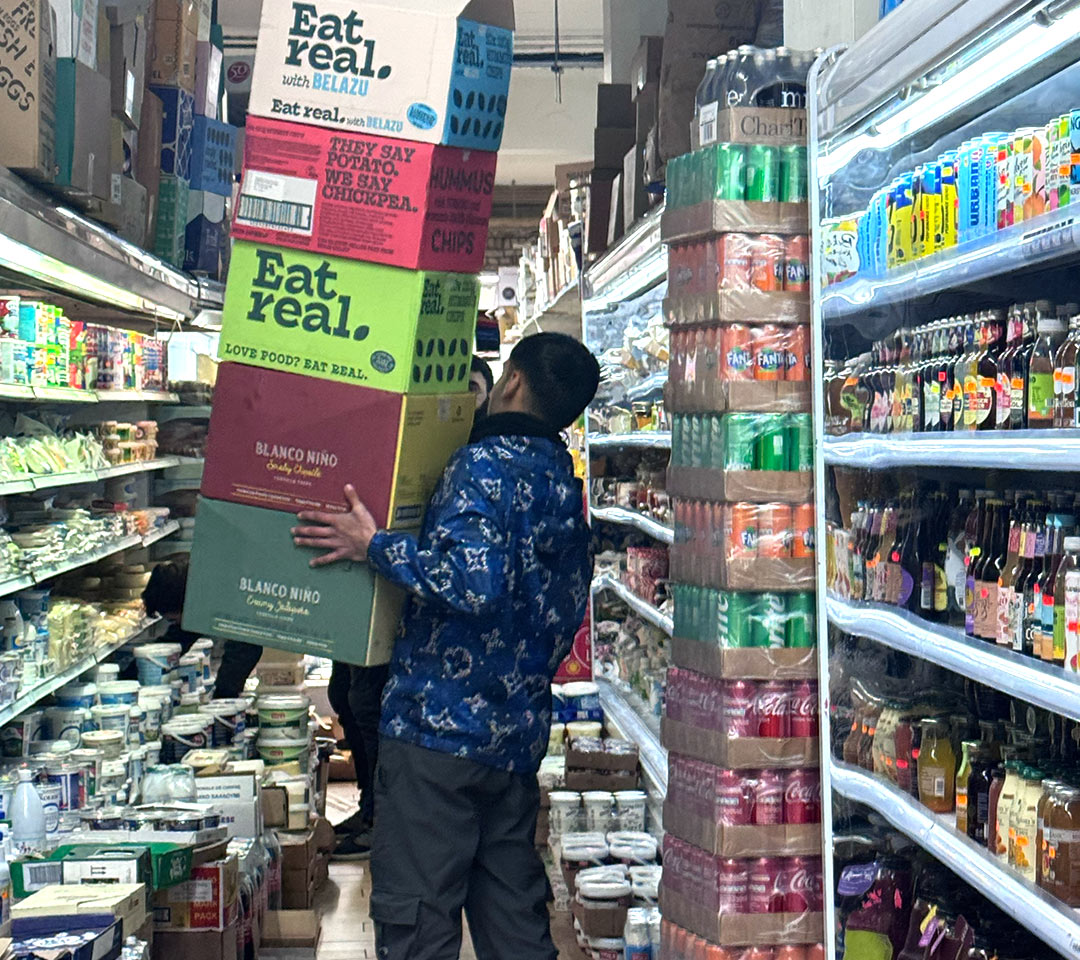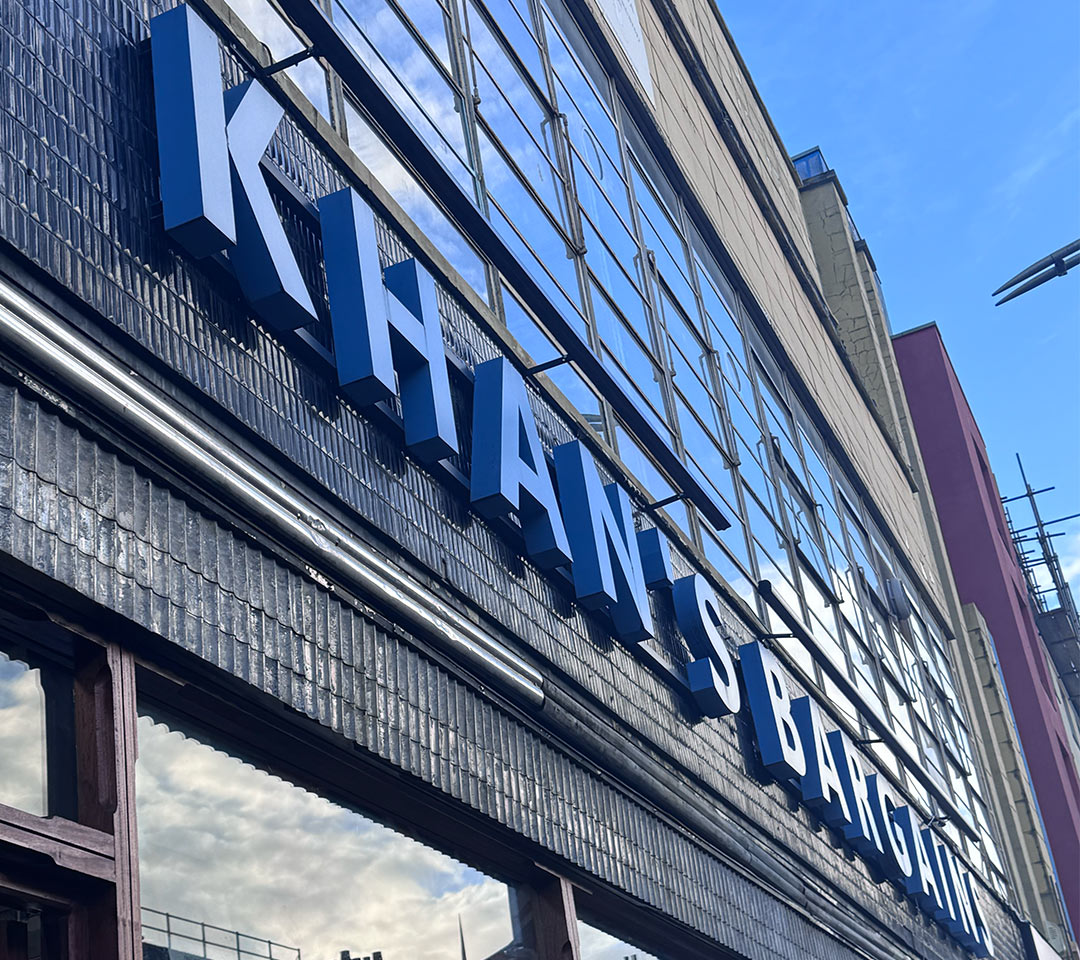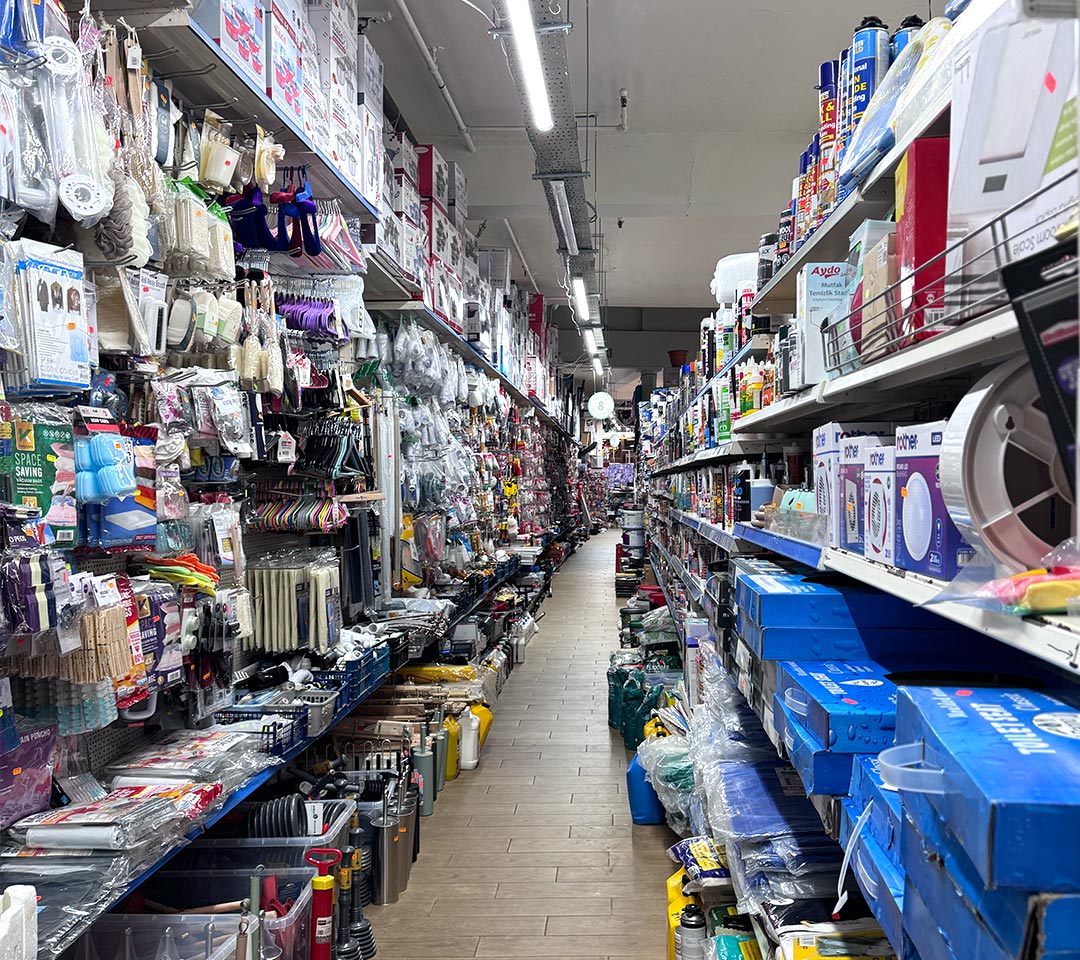
PLUSTHICK
PLUSTHICK is a typeface for cheap things. Inspired by Khan's Bargains, it reflects tightly packed objects, crowded shelves, and endless choices ' you never know what you will find, but you can always find what you need. Dense, heavy letterforms mirror tight spaces, visual overload, and everyday abundance. Cheap, plastic, and a little random. And who says cheap things can't be good?